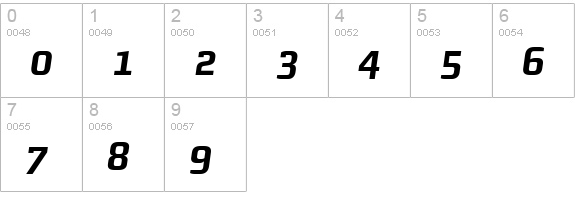
MorganAvec Bold ItalicOffice is a strong, high-contrast variant in the MorganAvec typeface family \xE2\x80\x94 well suited to headlines, attention-grabbing titles, and strong calls-to-action.
Introducing MorganAvec Bold ItalicOffice font - a striking and versatile typeface that exudes modern elegance and sophistication. With its bold yet graceful letterforms, this font is perfect for adding a touch of style to any design project. Whether you're creating a sleek logo, eye-catching headlines, or elegant invitations, MorganAvec Bold ItalicOffice font is sure to make a statement. And the best part? It's completely free! That's right, you can download MorganAvec Bold ItalicOffice font for free at FontsMarket.com. So go ahead and elevate your designs with this beautiful and unique typeface today.